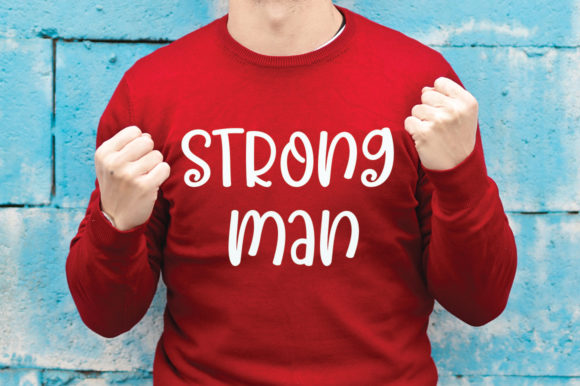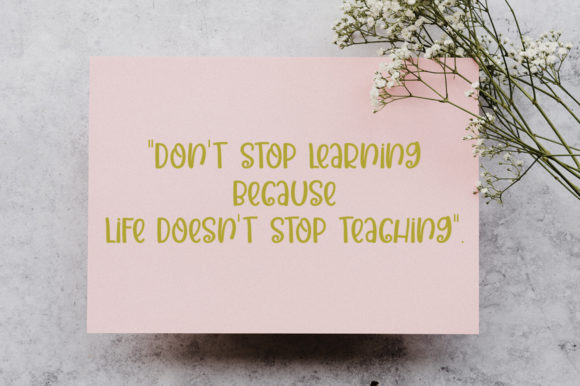
New Font Display Font
db-ku.com - Script & Handwritten -- New Font Display is a cute script font. Use it to make your ideas even more realistic and create spectacular designs!